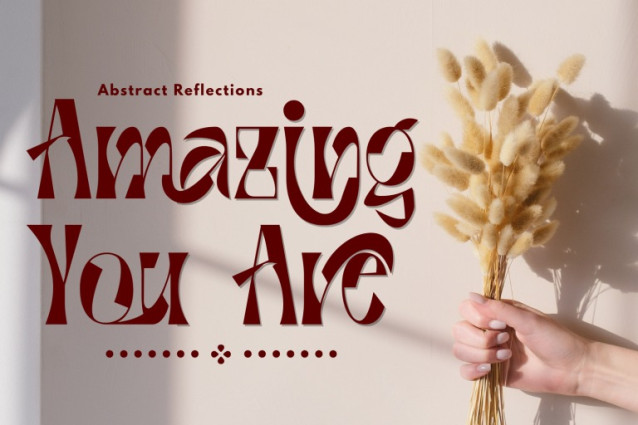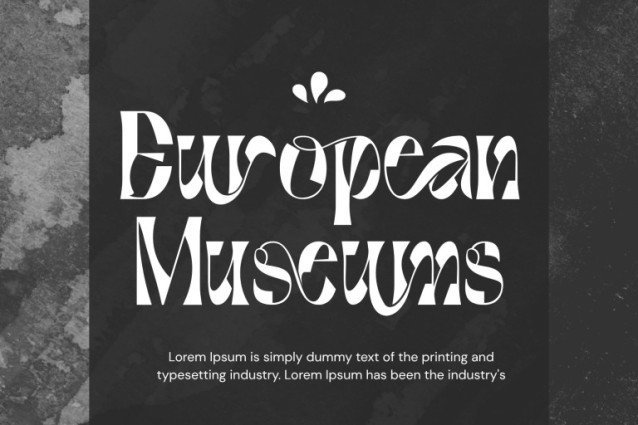
Abstract Reflections Font
Abstract Reflections – Ligature Font – Experimental Abstract Serif Typeface, is an artistic and highly expressive serif display font that pushes the boundaries of traditional typography. With its dramatic contrast, abstract shapes, and fluid ligatures, this font is designed to make a bold visual statement in any creative project. The letterforms feature sharp cuts, unexpected angles, and swirling decorative strokes that give a handcrafted, sculptural feel—ideal for modern branding, editorial design, posters, album covers, or fashion-related visuals.
🔤 Font Features:
Uppercase & Lowercase Letters
100+ Creative Ligatures & Alternates
Full Set of Numerals & Punctuation
Accented Characters for Extended Latin Support
High-Contrast Strokes with Geometric & Organic Forms
Perfect for Artistic, Editorial, Avant-Garde, and Luxury Projects
🔤 About 100 ligatures combined with Stylistic Alternates Font: